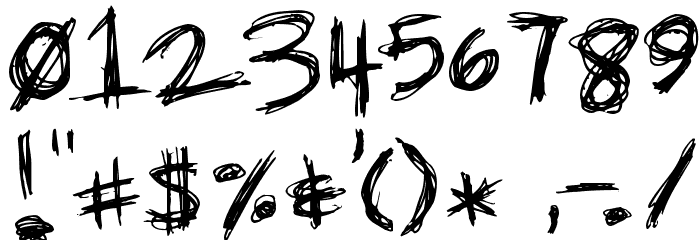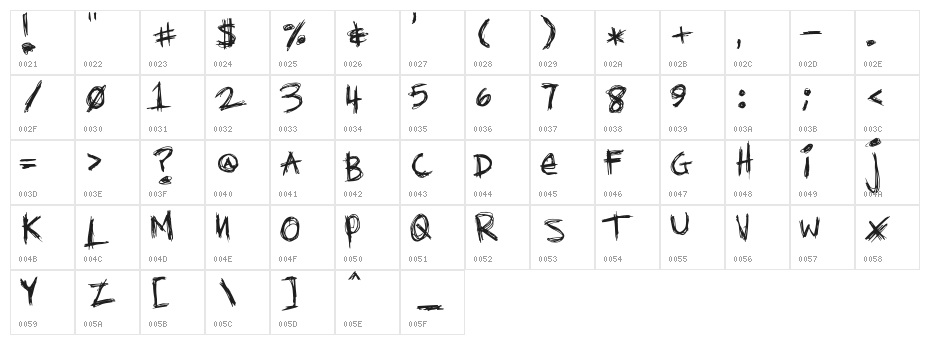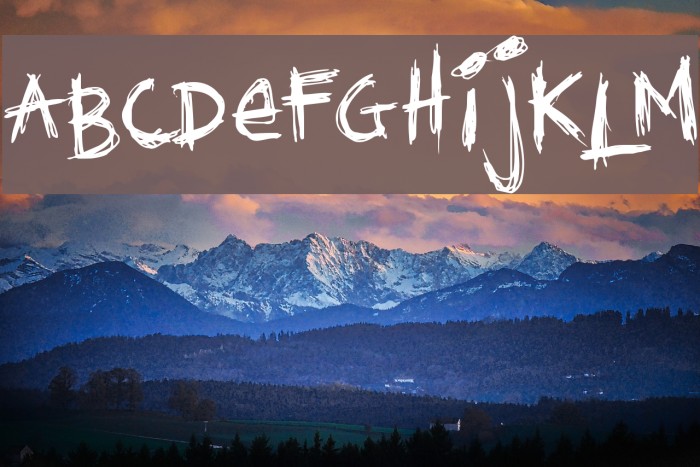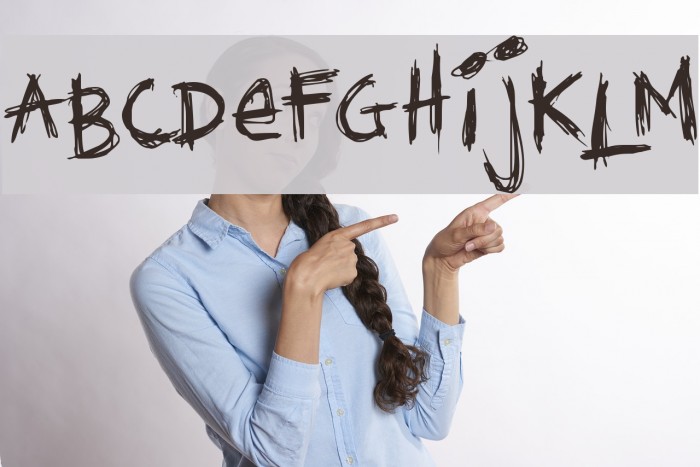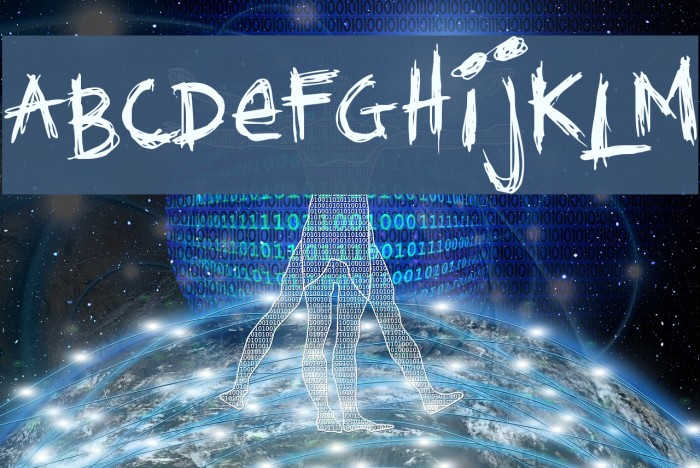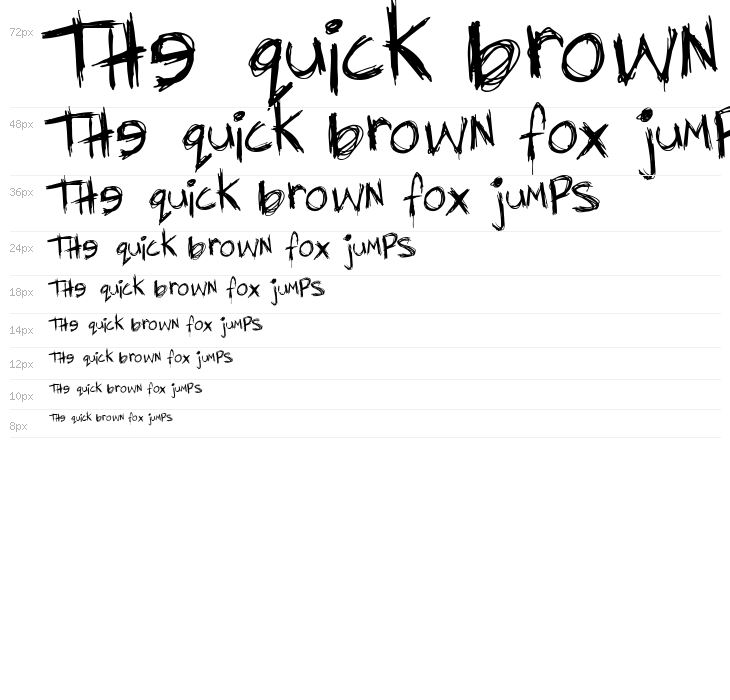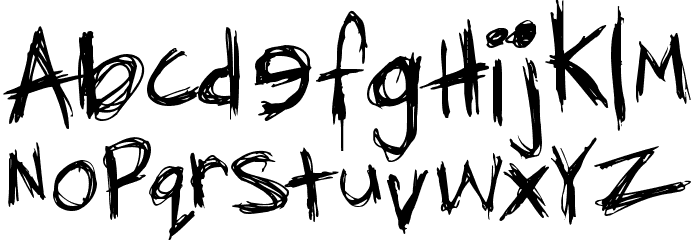
Diediedie Font
Diediedie Description
This font exudes a raw, edgy aesthetic with its hand-drawn, chaotic strokes. Each character appears as if it has been sketched with a rough brush, giving it a distressed and rebellious look. The uppercase and lowercase letters maintain a consistent style, with jagged edges and uneven lines that create a sense of urgency and intensity. The numbers and special characters follow the same rugged design, enhancing the font's overall gritty appearance. This font is perfect for projects that require a bold, unconventional statement, capturing attention with its unique and artistic flair.
| Use Case | Headlines, Posters, Artistic Projects |
| Proposed Projects | Ideal for album covers, posters, graffiti art, and any project needing a bold, artistic statement. |